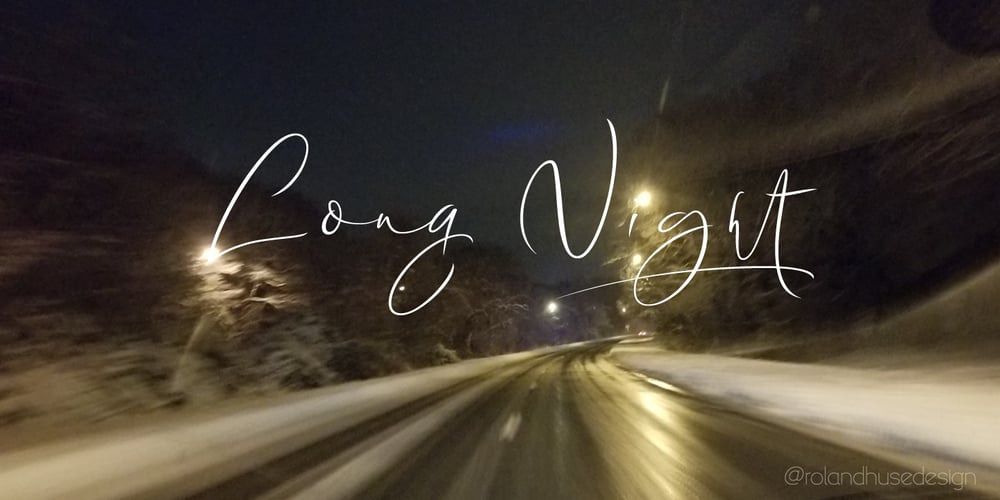
Long Night
Long Night font
Long Night Font Family was designed by Roland Hüse and published by Roland Hüse Design. Long Night contains 1 styles and family package options. LONG NIGHT is a a handwriting/signature script with open type ligatures and stylistic alternates. Perfect for titles, headings and logotypes, products packaging or photography watermarks. It includes Western European accented characters. For additional customisations (for logotypes for example) or if you have any further questions, request pleas contact me. Thank you I hope you like this font & good luck with your project! Roland Instagram: @rolandhusedesign Cool background image that inspired the name by my good friend Joshua Guandique https://www.instagram.com/josh_g_art/